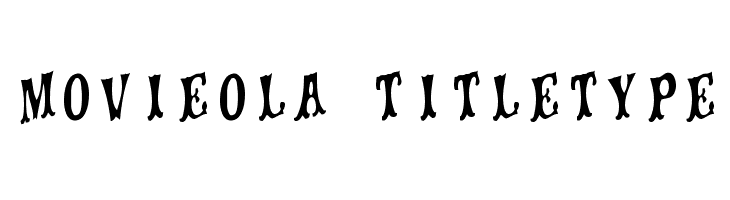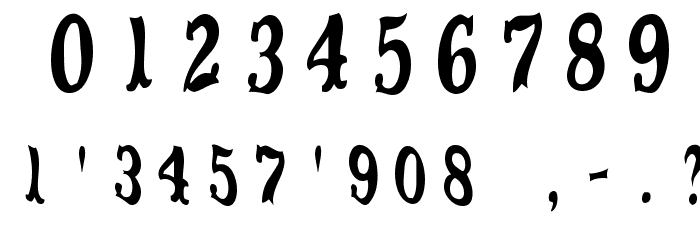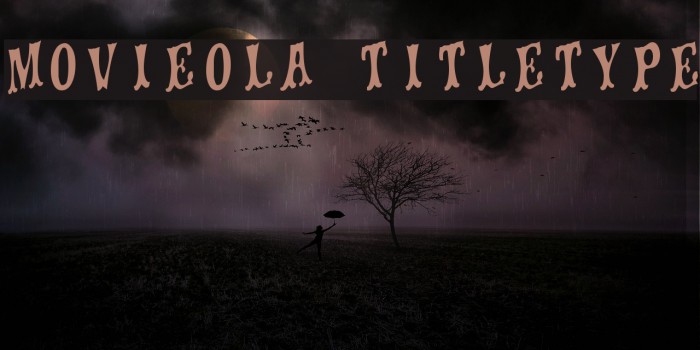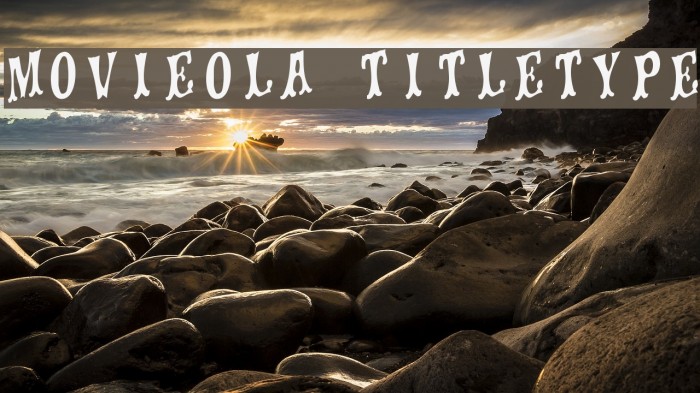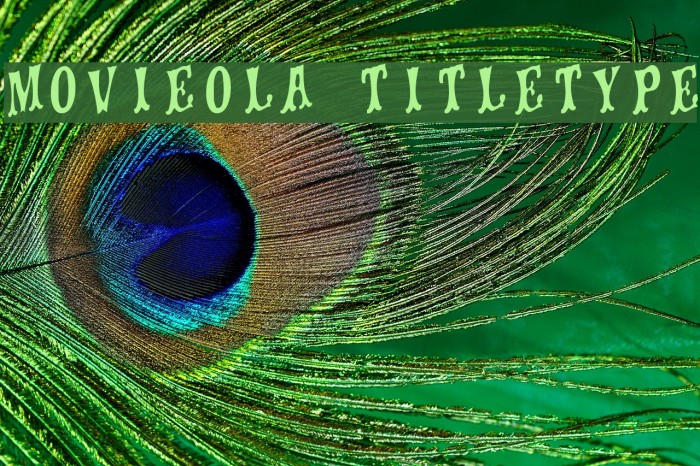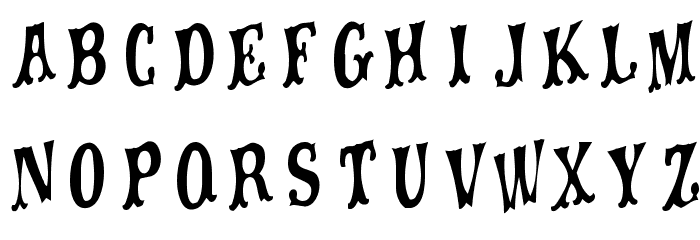
movieola titletype Font
This font features a distinctive, playful style with exaggerated serifs and a whimsical flair. Each character is uniquely crafted, giving it a hand-drawn appearance that adds a touch of vintage charm. The uppercase and lowercase letters maintain a consistent design, with bold strokes and varying thickness that create a dynamic visual impact. Numbers and special characters are equally stylized, ensuring a cohesive look across all elements. The font's quirky and artistic nature makes it ideal for projects that require a touch of creativity and individuality.
A whimsical, vintage-style font with exaggerated serifs and a playful, hand-drawn appearance.
• Proposed Projects: Ideal for creative projects such as posters, invitations, branding for artisanal products, or any design that seeks a unique, vintage touch.
• Category: Decorative/Display
• Bold: Yes
• Italic: No
• Weight: Bold
• Width: Normal
• Character Spacing: Normal
• Contrast: High
• Overall Style: Vintage, Decorative
• Use Case: Headlines, Logos, Posters